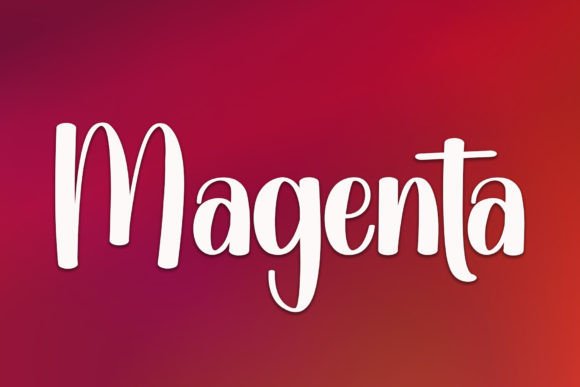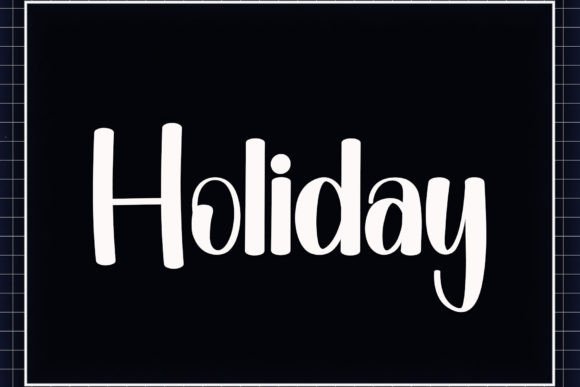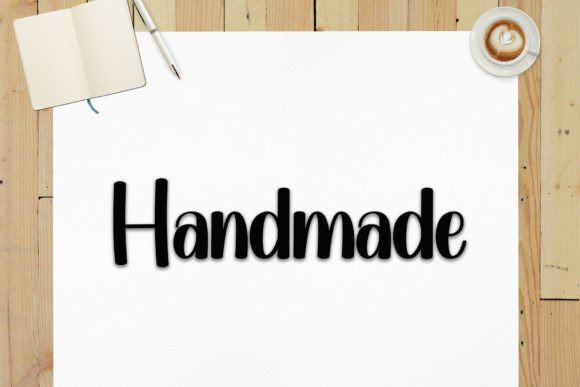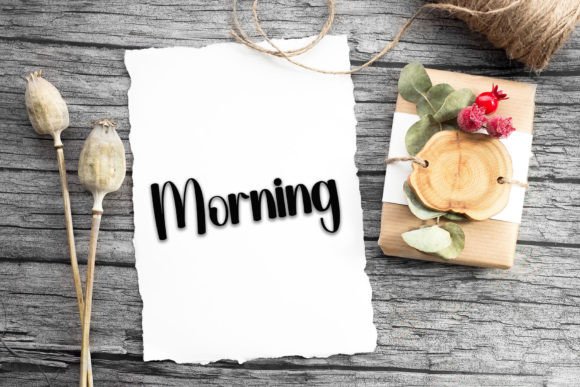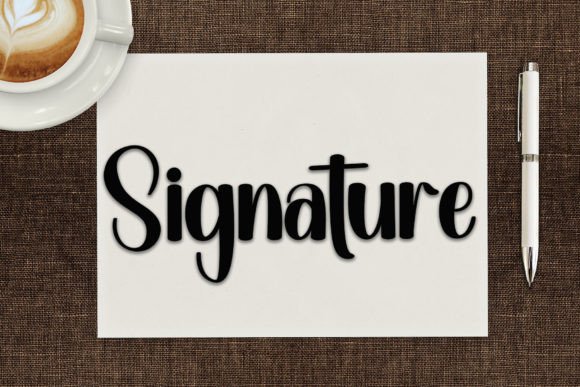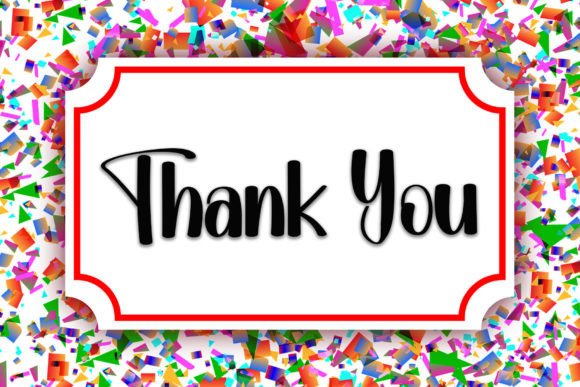
Introducing Happy Birthday Font: Elevate Your Designs with Timeless Elegance
Are you searching for a font that exudes sophistication, elegance, and a touch of modern flair? Look no further than the Happy Birthday Font, a stylish handwritten font that is sure to elevate your designs to new heights. Inspired by timeless classic calligraphy, this font boasts a contemporary atmosphere and impeccable form, making it perfect for designers and crafters seeking to add a touch of luxury to their projects.
Balanced and Varied: The Key to Versatility
One of the standout features of the Happy Birthday Font is its balanced and varied design. This font has been carefully crafted to provide a range of options for designers, allowing you to experiment with different styles and tones. Whether you’re working on a wedding invitation, a branding project, or a social media graphic, this font is sure to adapt to your needs. The varied glyphs and ligatures ensure that your text will never look repetitive or monotonous, adding a level of sophistication to your designs.
The Happy Birthday Font is a dream come true for designers and crafters. Whether you’re a seasoned professional or just starting out, this font is sure to inspire your creativity and help you produce stunning work. From digital designs to print materials, this font is versatile enough to be used across a range of mediums. Imagine being able to create beautiful wedding invitations, elegant branding materials, and eye-catching social media graphics with ease – the Happy Birthday Font makes it all possible.
Timeless Elegance for Any Project
The Happy Birthday Font is more than just a font – it’s a design solution. Its timeless elegance ensures that your designs will never go out of style, even as trends come and go. This font is perfect for:
- Print materials, such as brochures and flyers
- Digital designs, including web graphics and email templates
- Unique and stylish design
- Balanced and varied for versatile use
- Timeless elegance for long-lasting designs
- Perfect for designers and crafters of all levels